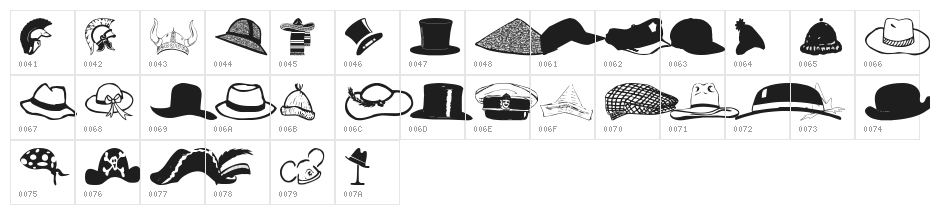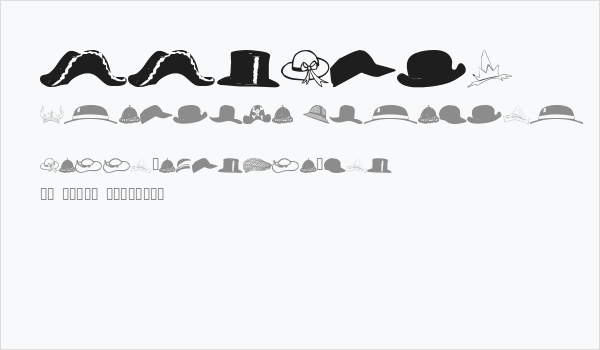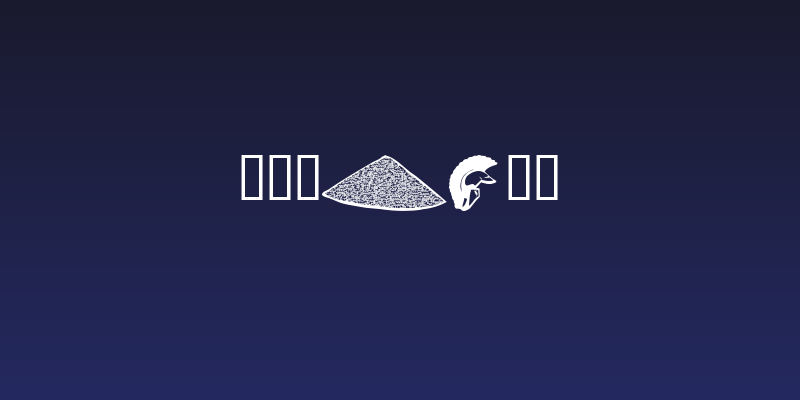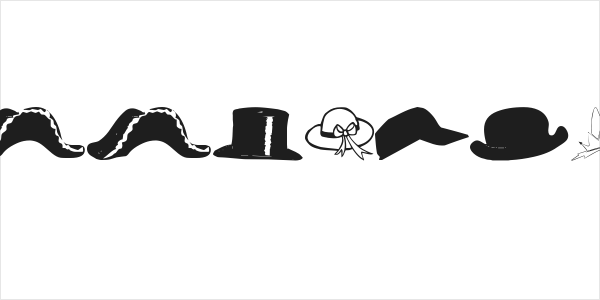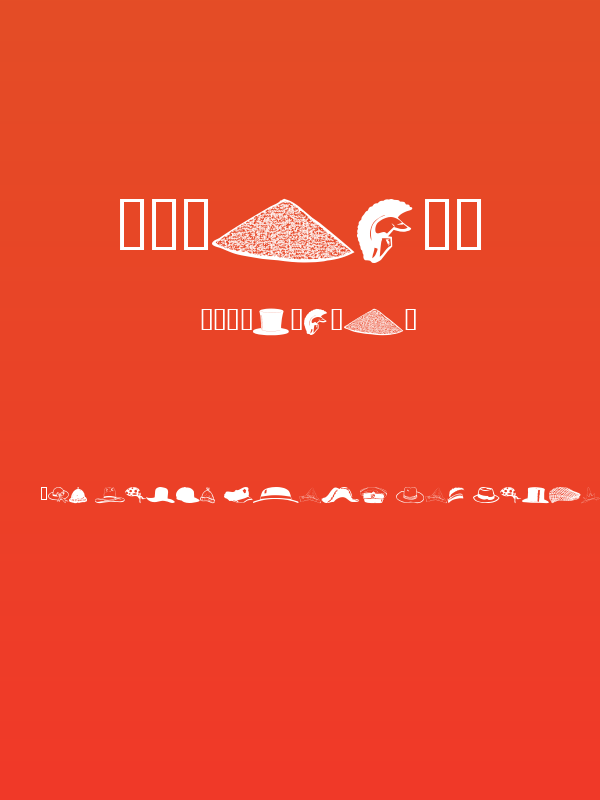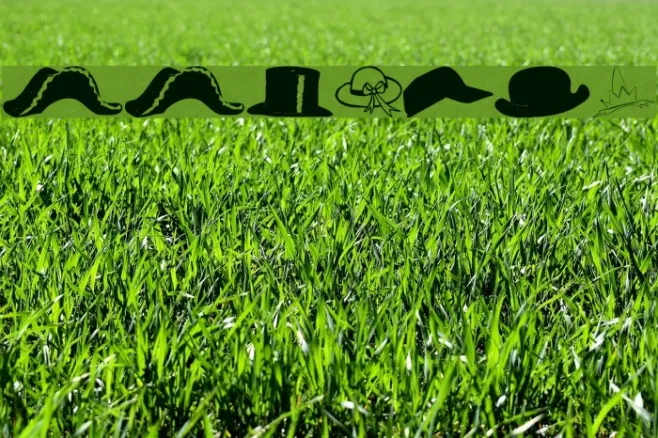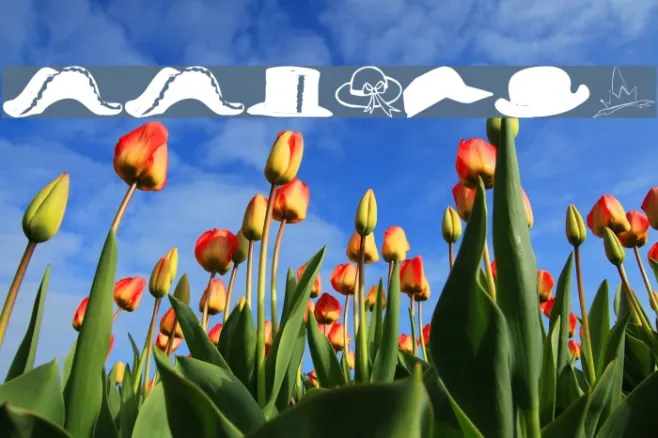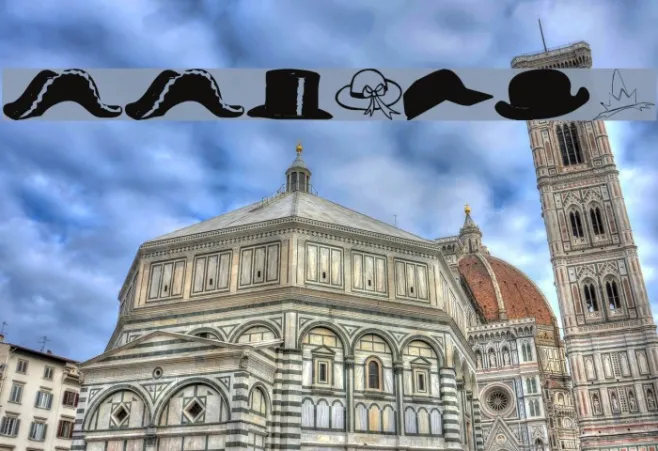
wwmhats Font
wwmhats Description
This is a decorative font featuring a variety of hat illustrations in place of traditional alphanumeric characters. Each character is represented by a unique hat design, ranging from historical helmets to modern caps. The font is playful and visually engaging, making it ideal for creative projects that require a whimsical touch. The detailed illustrations capture the essence of each hat style, providing a diverse range of visual elements. This font is not suitable for body text due to its illustrative nature but can be effectively used for decorative purposes.
| Use Case | Logos, Posters, Invitations |
| Proposed Projects | Ideal for themed party invitations, children's book illustrations, fashion event posters, and creative branding materials. |